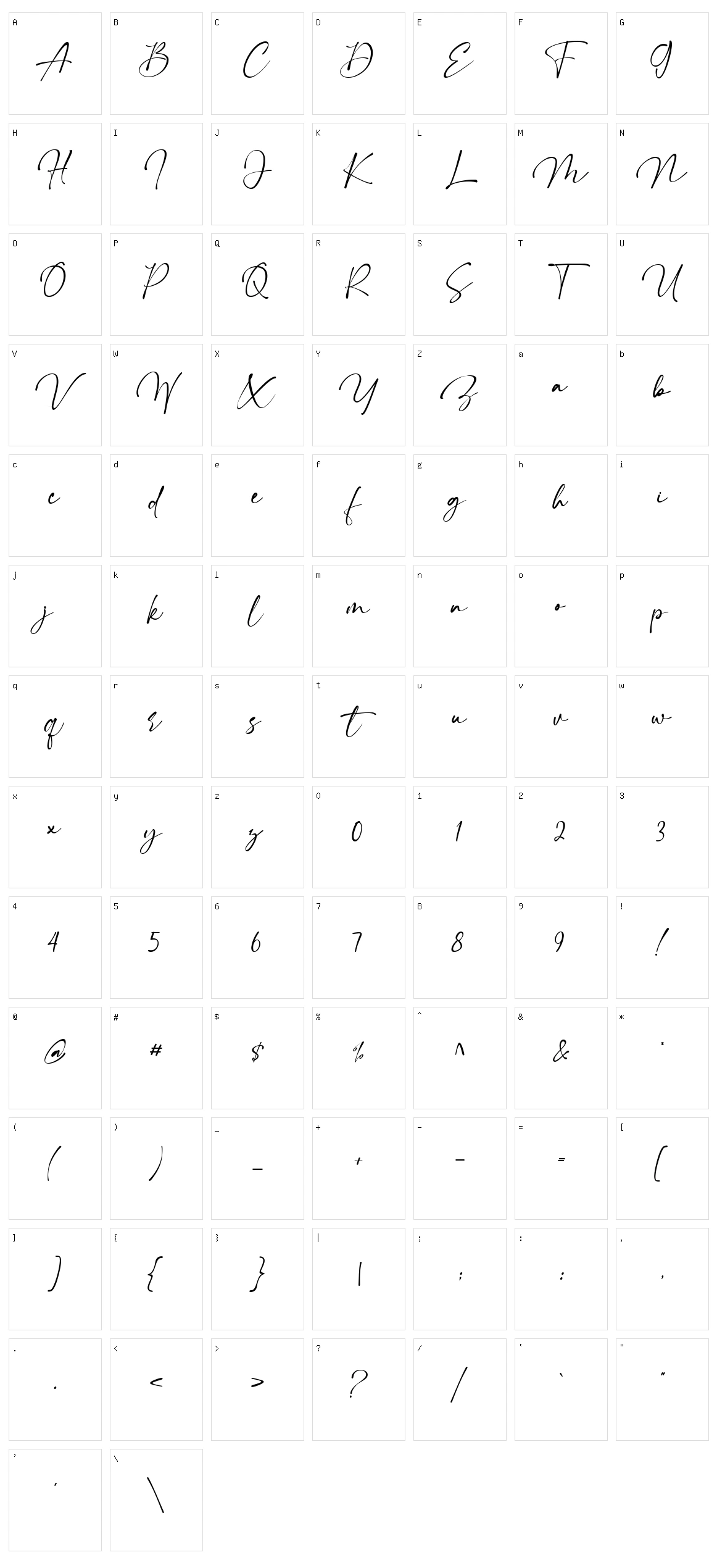
The free font Constaller is carefully designed by Namara Creative, showcasing a thoughtful balance of creativity and usability and falls under the Script font style. When you download the ZIP file, it contains only 46.72 KB of font files, making it lightweight and quick to download. Please review the license details below to understand permitted usage and distribution rights. If license information is not available, we recommend using this font for personal projects only or contacting the author directly for commercial usage permissions.